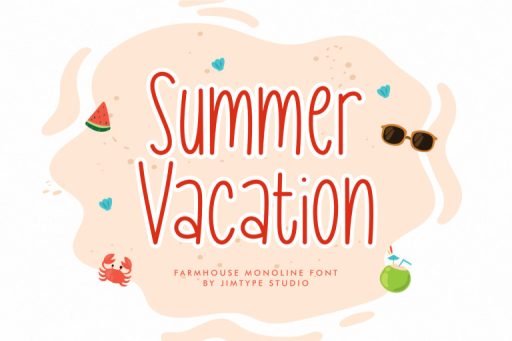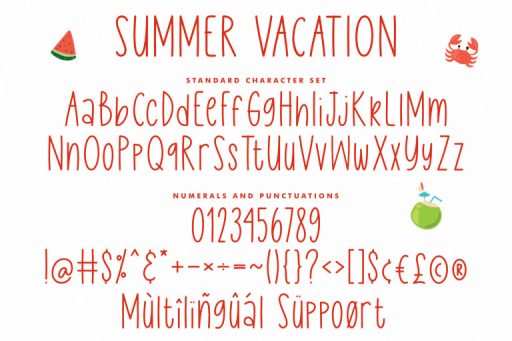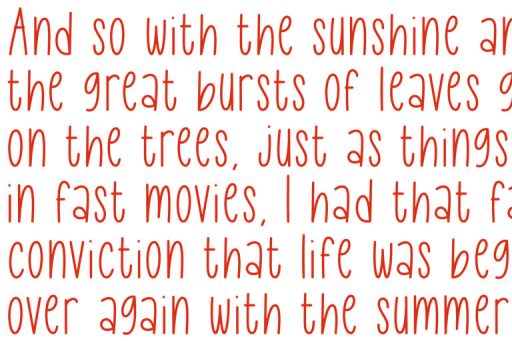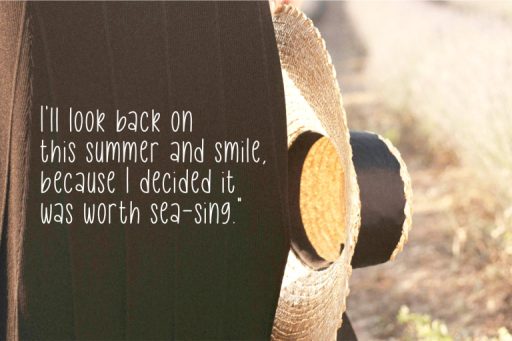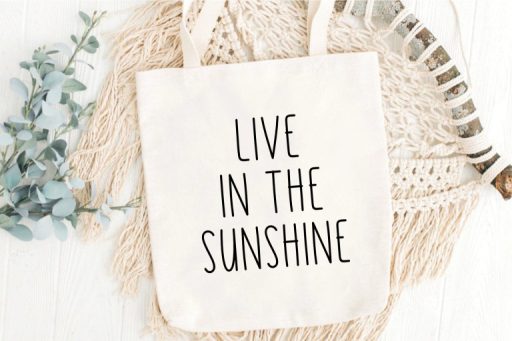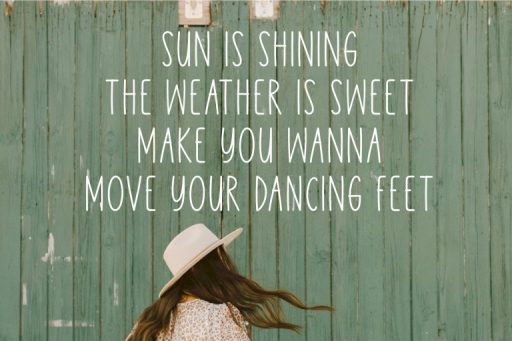
Summer Vacation - Farmhouse Font from Jimtype Studio
Summer Vacation
Summer Vacation – Farmhouse Font from Jimtype Studio
Introducing Summer Vacation, a charming narrow, and tall font that’s both fun and adorable! Perfect for creating eye-catching cards, logos, thumbnails, wedding invitations, and all your summer designs this year. Add a touch of whimsy to your projects with Summer Vacation!
Summer Vacation Font